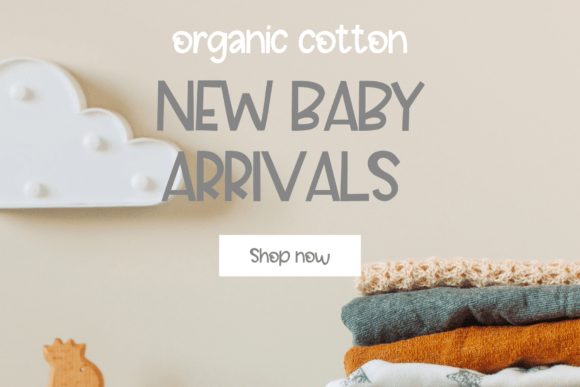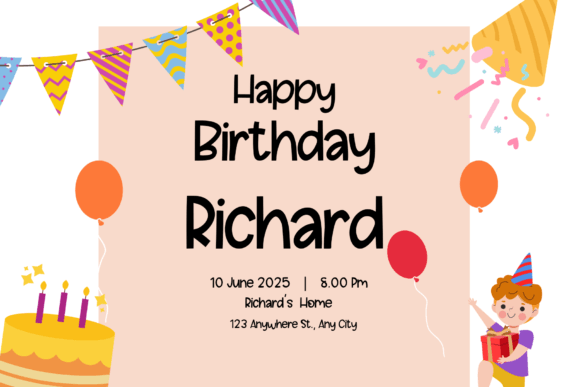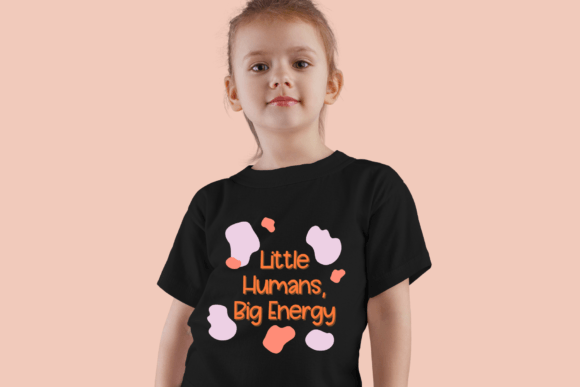
Introduction to Nice Kids Font
Nice Kids is a cute and friendly handwritten font.
Nice Kids is a trendy handwritten font with a contemporary atmosphere and impeccable form It will add elegance and class to any of your design projects.